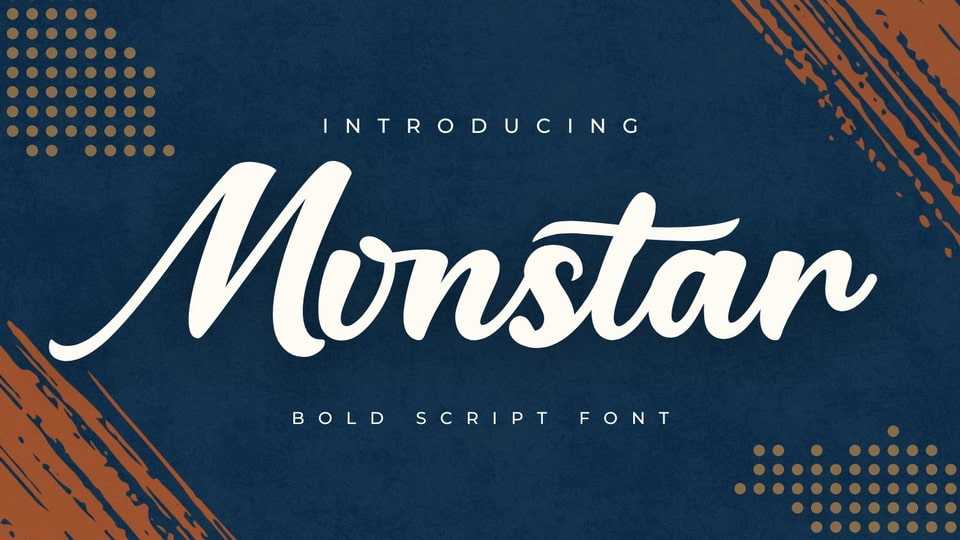
Download Monstar font, a smooth and warm handwritten calligraphy typeface that radiates elegance and charm with its flowing strokes and carefully crafted curves.